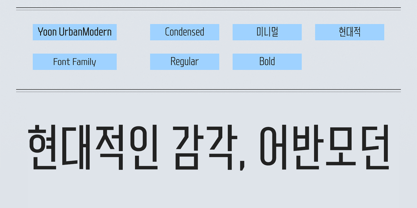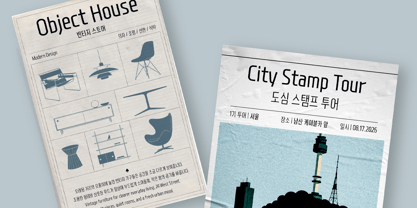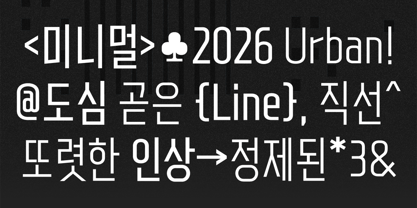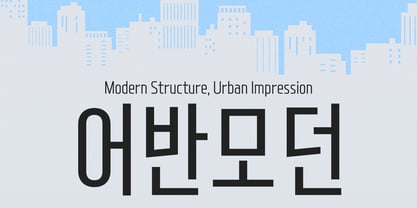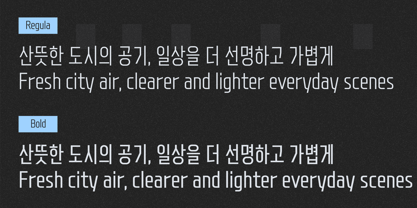
Yoon UrbanModern
by Yoon Design
The Yoon UrbanModern Font Family was designed by Yoon Design Team and published by Yoon Design. Yoon UrbanModern contains 2 styles and family package options. More about this family
Yoon UrbanModern is a refined reinterpretation of Yoon UrbanVintage. By softening its textured appearance into a clean form, it delivers a balanced urban aesthetic. Refined stencil structures and adjusted proportions create a crisp, sophisticated impression that helps your text stand out clearly.
Designers: Yoon Design Team
Foundry: Yoon Design